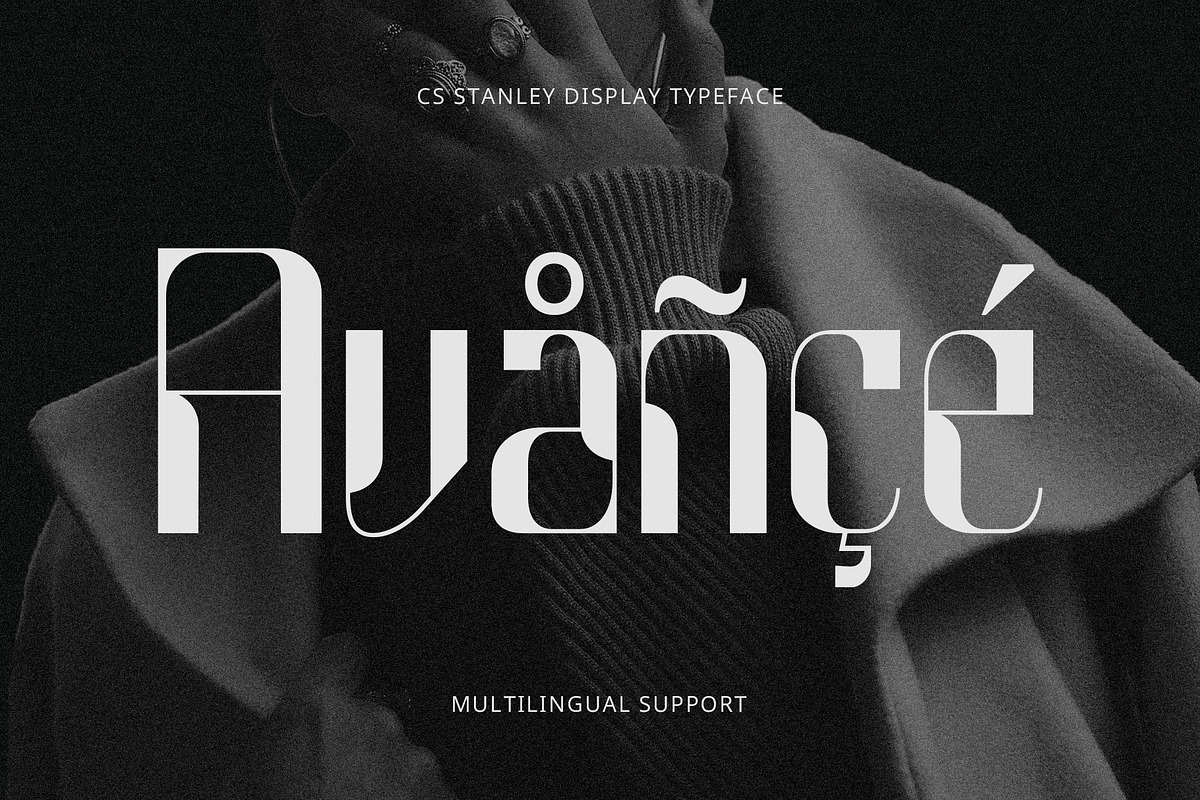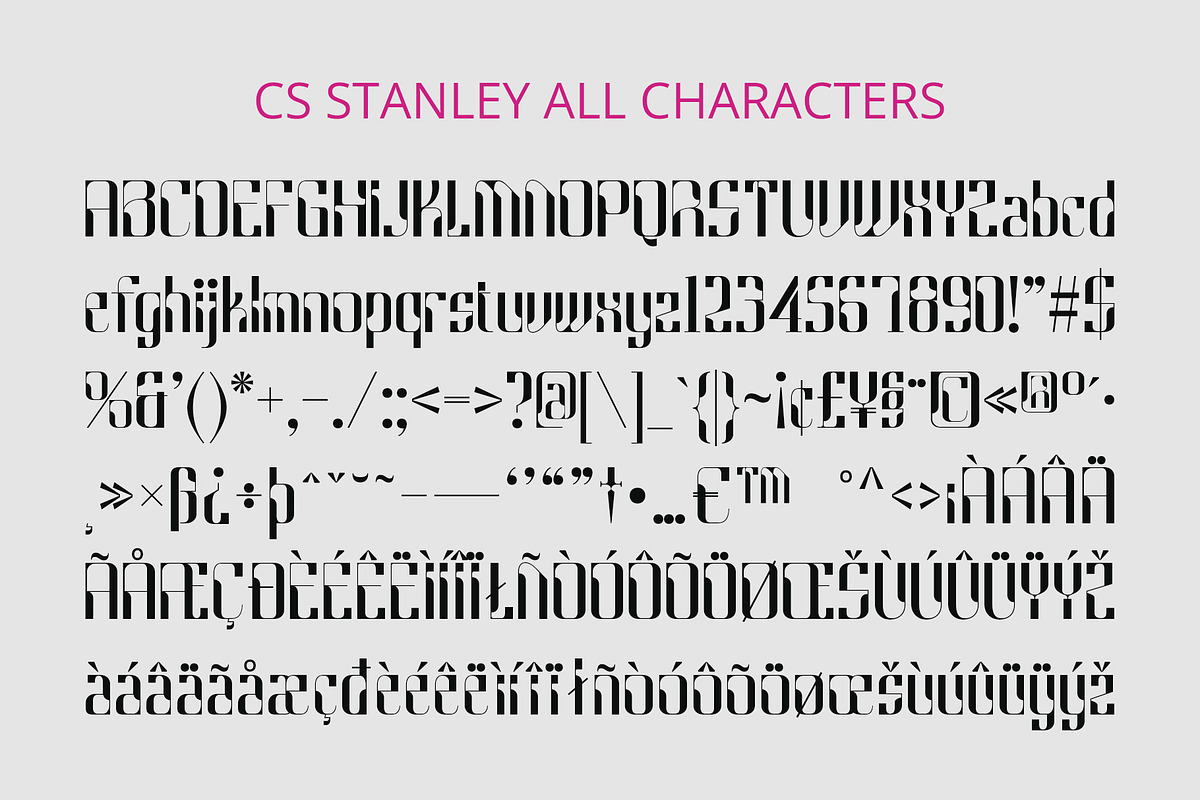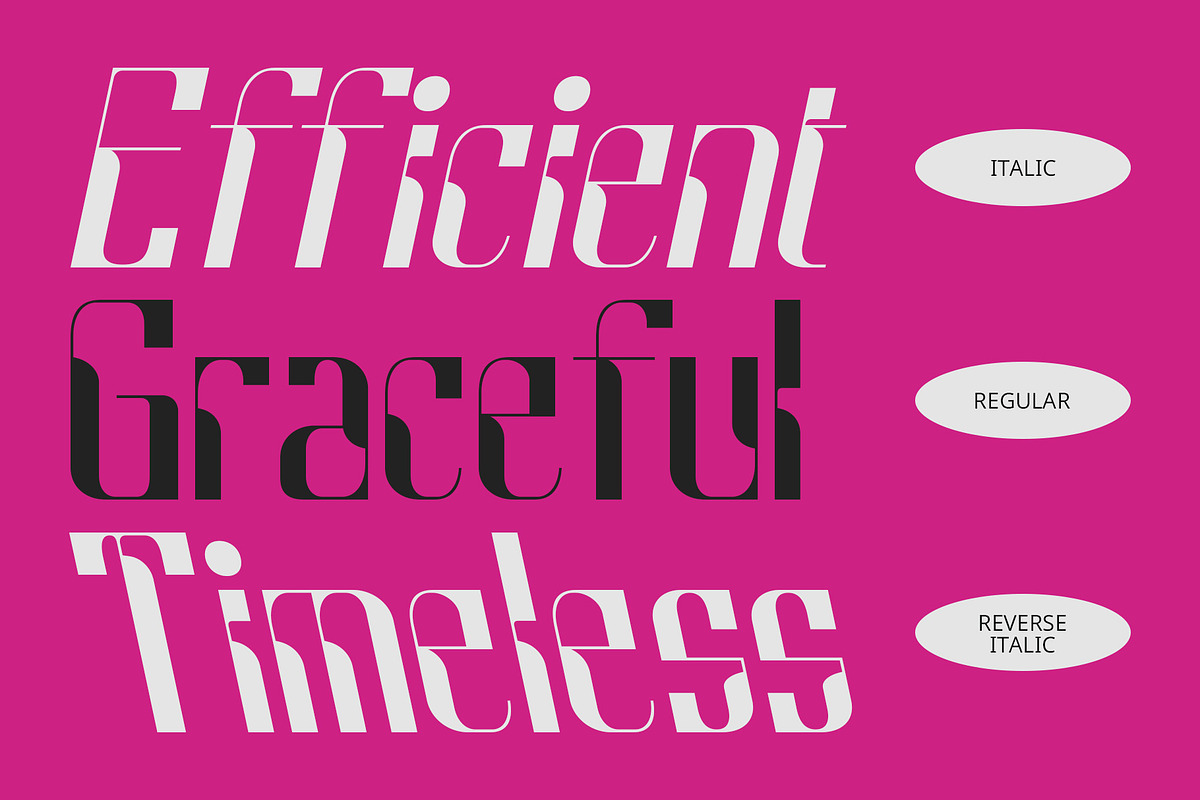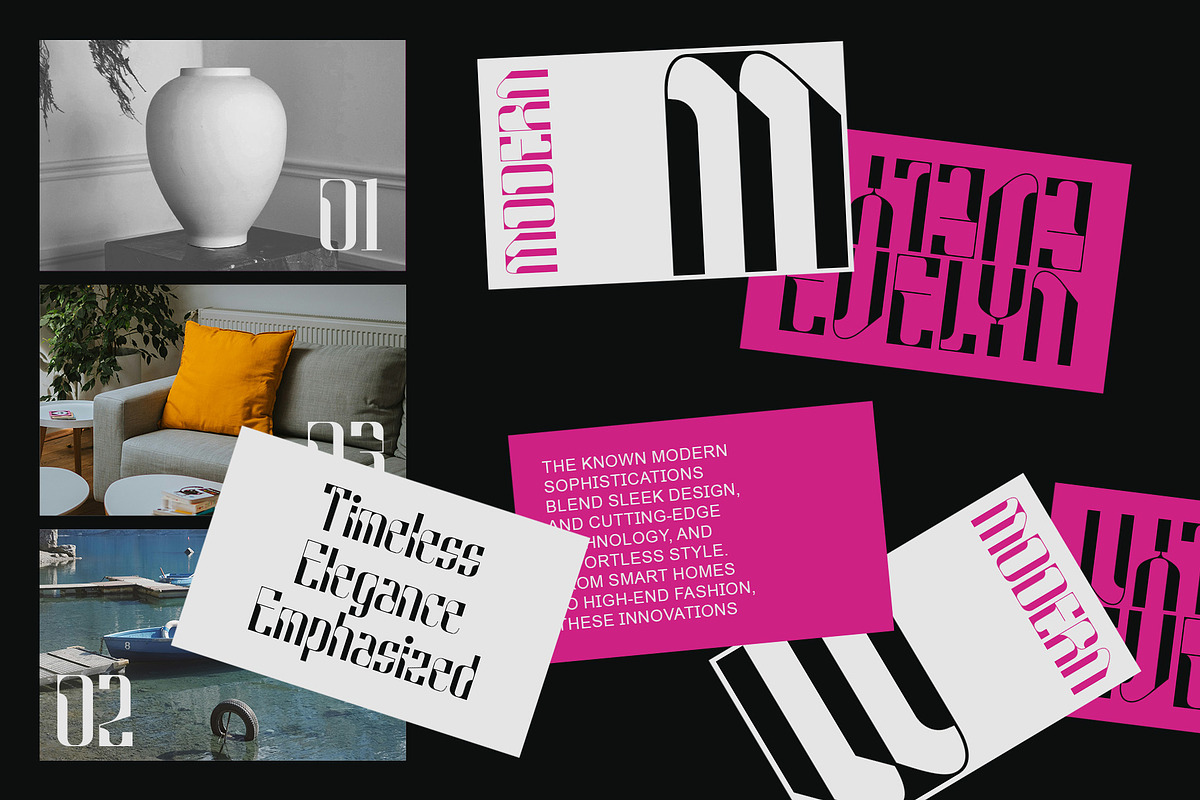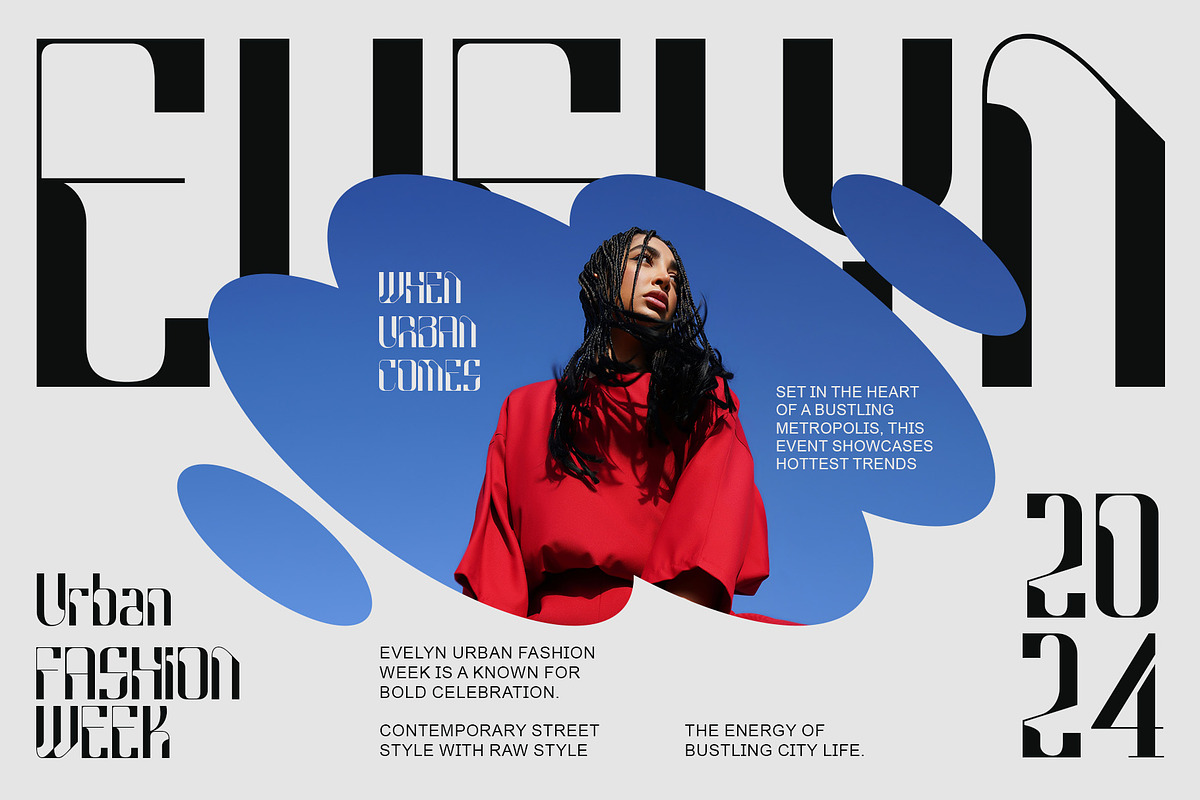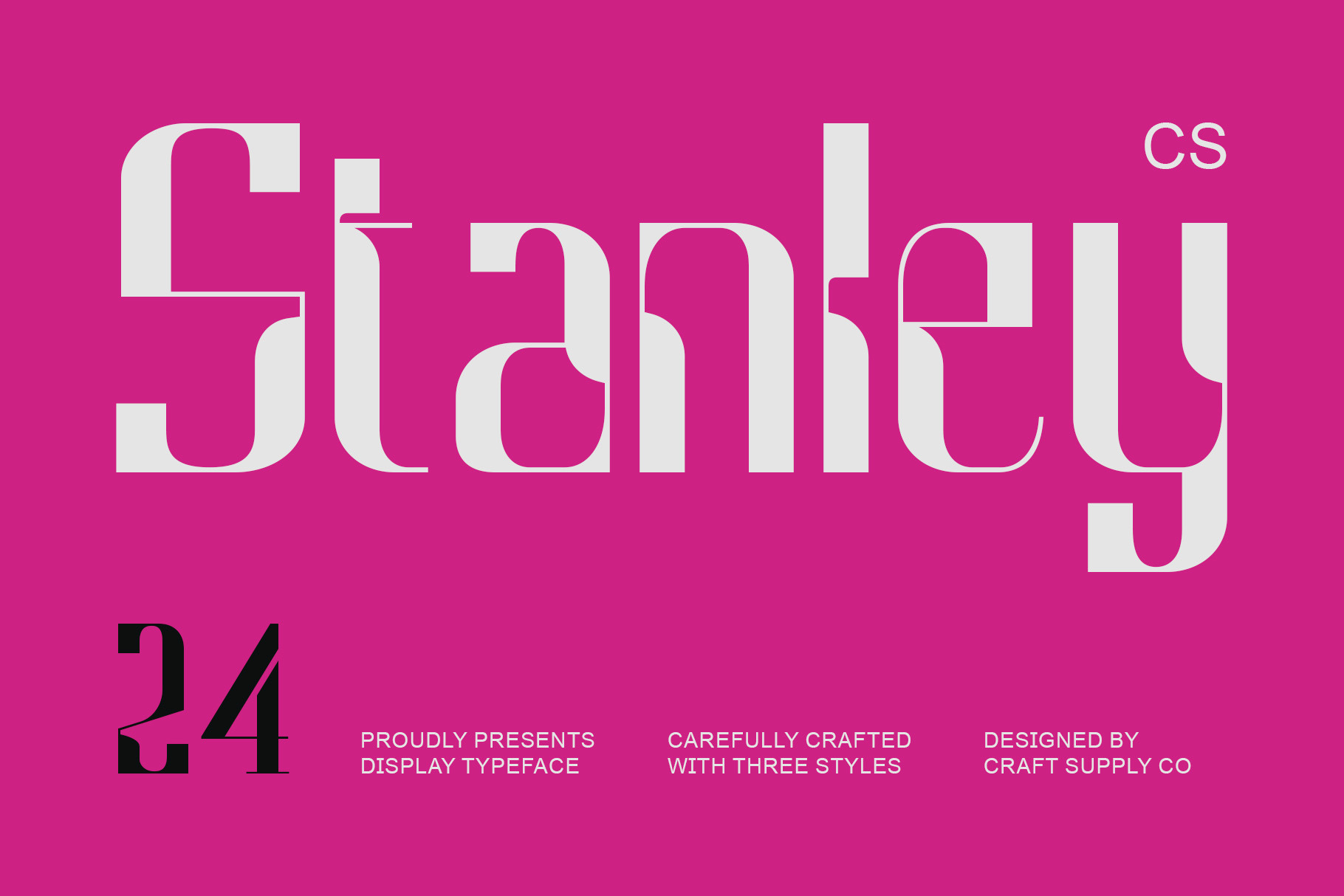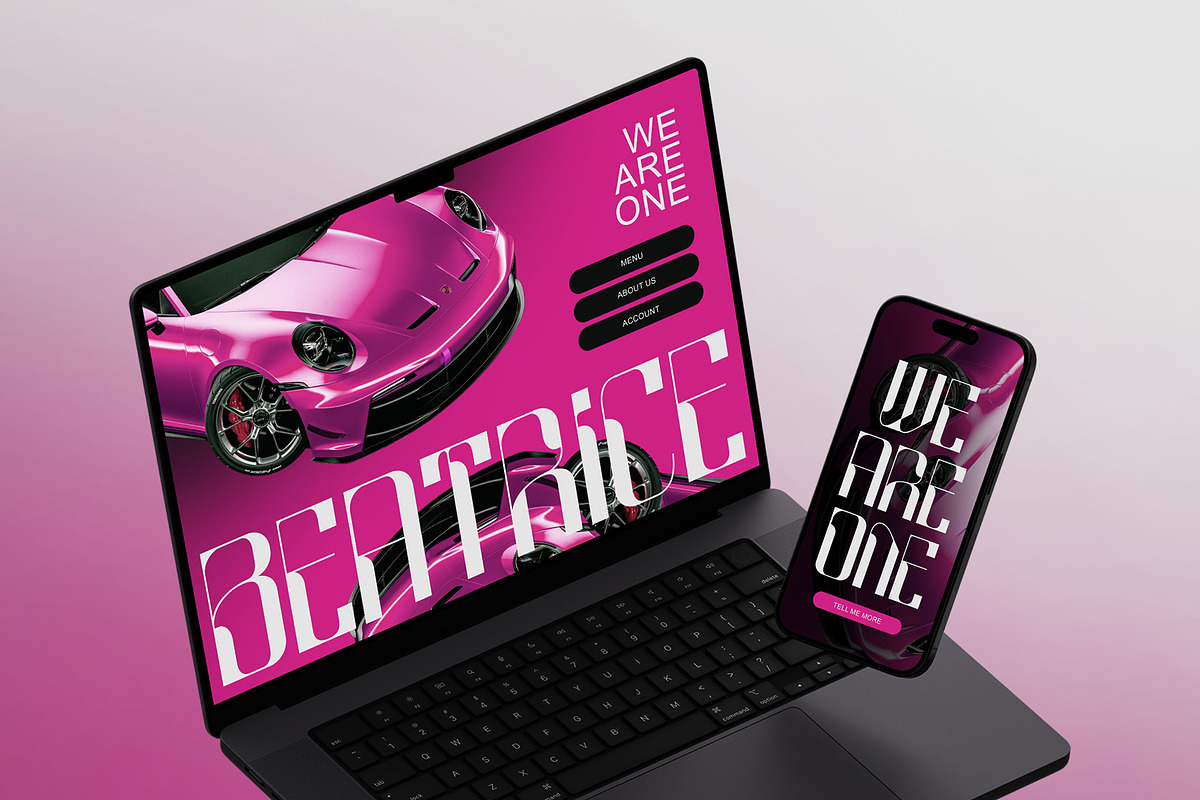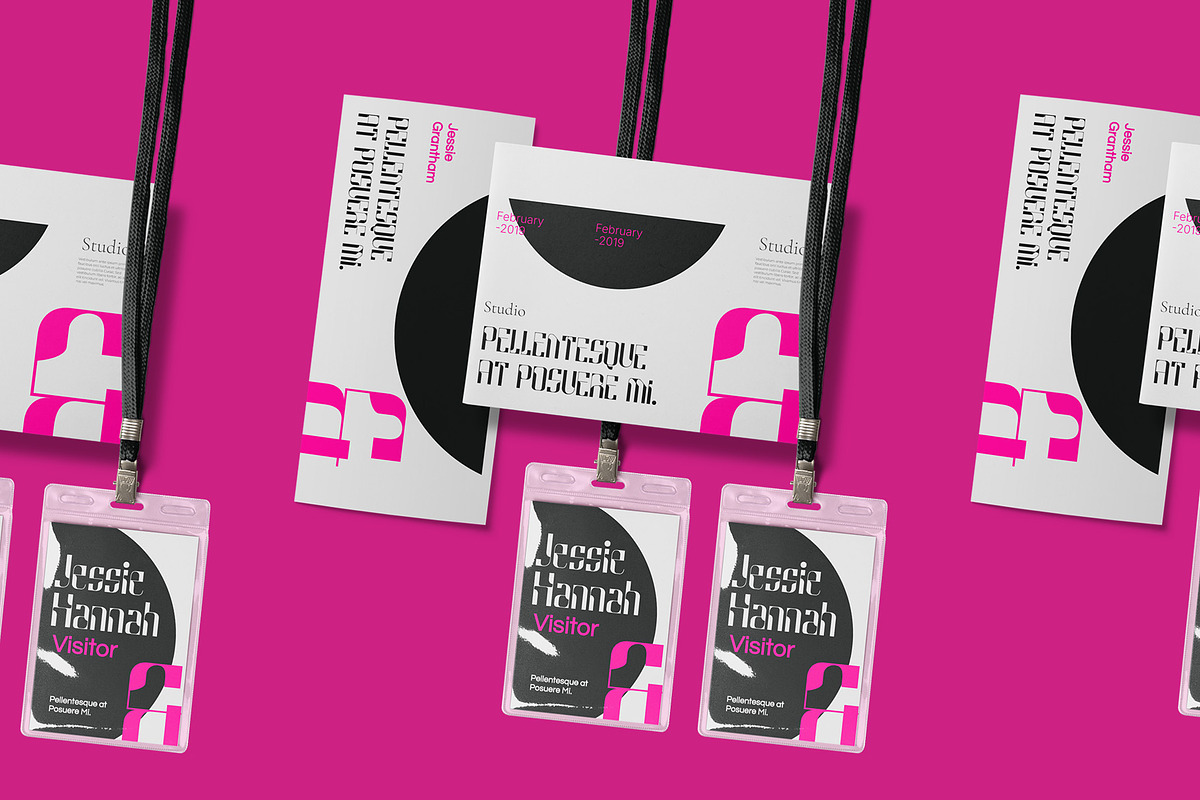
CS Stanley – Techno Font
CS Stanley – A Techno Font
Embodying Technological Innovation CS Stanley is a modern display font that seamlessly integrates design elements reflective of technological advancement and innovation. With its striking techno and futuristic style, this font is perfect for projects that aim to convey a cutting-edge aesthetic. The bold lines and geometric shapes within the characters create a daring and contemporary look, making it a standout choice for various creative applications.
Dynamic Forms with a Digital Feel Each character in CS Stanley is designed with a dynamic form, showcasing clean details that impart a strong and modern impression. The font’s geometric structure is reminiscent of digital interfaces, offering a sense of precision and clarity. This digital feel enhances the overall appeal of the font, making it ideal for use in technology-focused projects, gaming graphics, or any design requiring a contemporary flair.
Versatile Applications for Modern Branding CS Stanley is particularly well-suited for branding initiatives that emphasize uniqueness and modernity. Whether used in promotional materials, app interfaces, or websites, this font enhances visual storytelling by creating a futuristic atmosphere that resonates with tech-savvy audiences. Its versatility allows it to function effectively in various contexts, from headlines to body text, ensuring cohesive design solutions.
- CS Stanley Regular
- CS Stanley Italic
- CS Stanley Reverse Italic